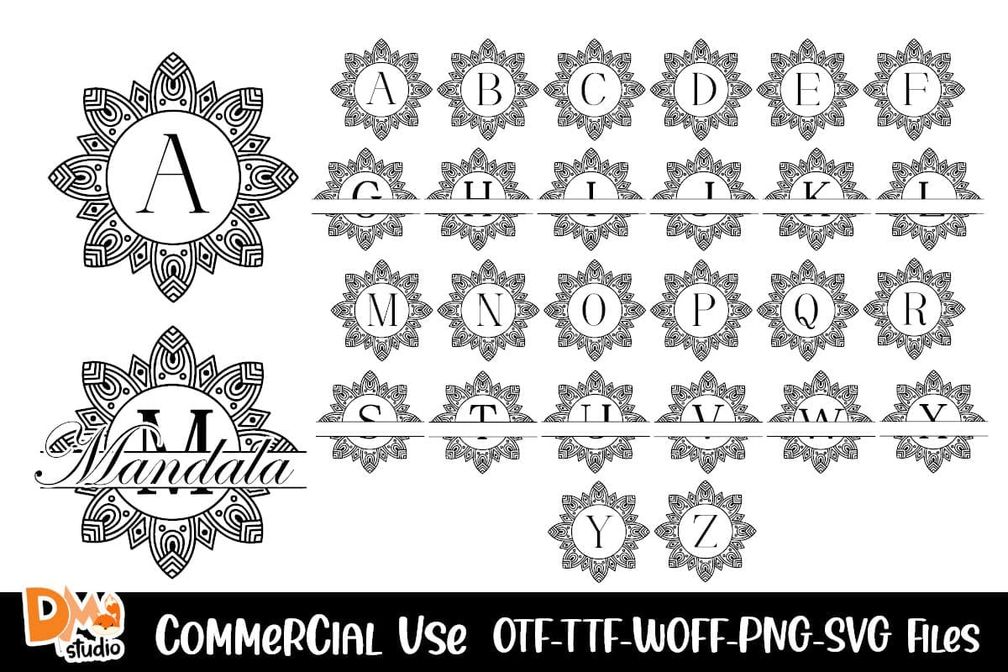
Diamond Mandala Monogram Font
Diamond Mandala Monogram Font is a sophisticated and intricate typeface that combines the elegance of diamonds with the beauty of mandala patterns. This unique font is designed for creating monograms with a touch of luxury and style. With its versatile file formats, including OTF, TTF, WOFF1, WOFF2, and additional PNG and SVG files, this font provides flexibility for various design applications.
1. Diamond Mandala Monogram Design: The font features a carefully crafted monogram design with intricate diamond and mandala elements. It adds a touch of sophistication and luxury to your monogram creations.
5. Multilingual Support: The font includes characters that support various languages, ensuring global usability.
6. Usage Versatility:
• Ideal for creating monograms for personal branding, wedding invitations, stationery, and more.
• Suitable for both digital and print applications, including web design, posters, and apparel.
Elevate your monogram designs with the opulence of the Diamond Mandala Monogram Font. Its intricate details and versatile file formats make it a valuable asset for various design projects, adding a touch of luxury to your creations.